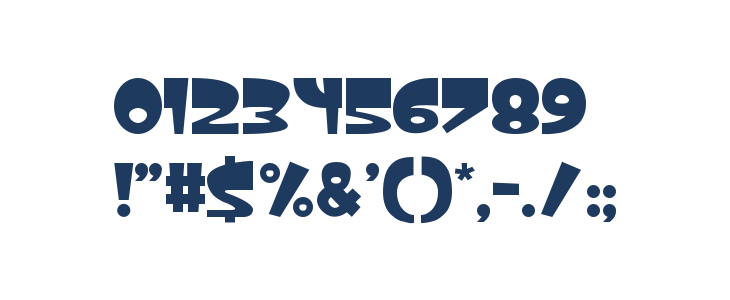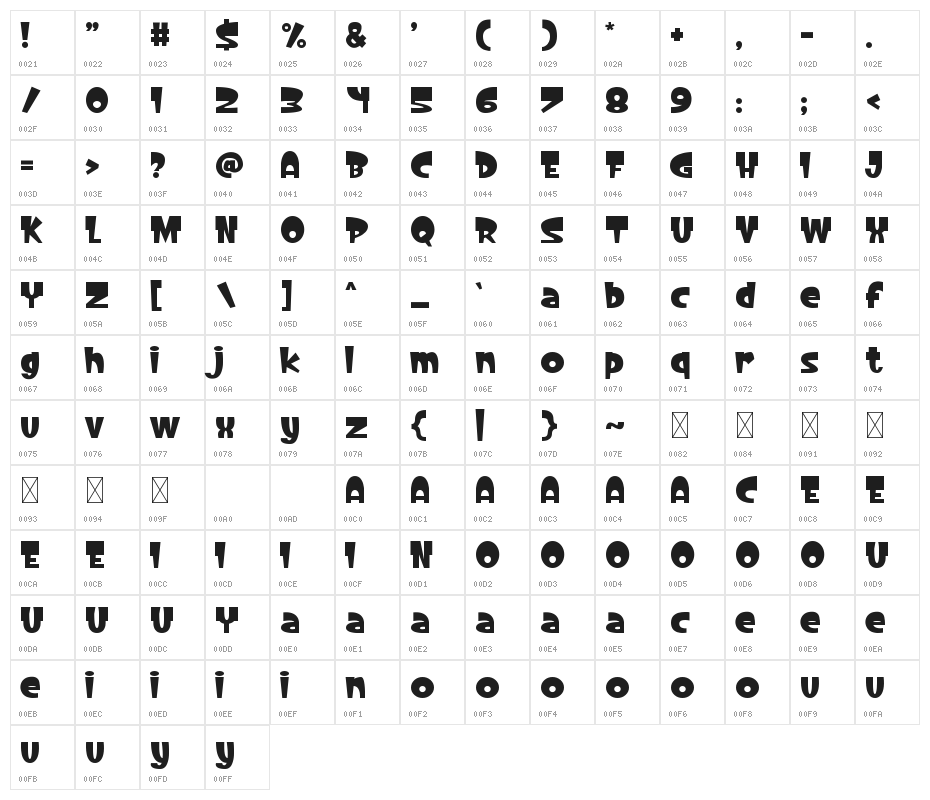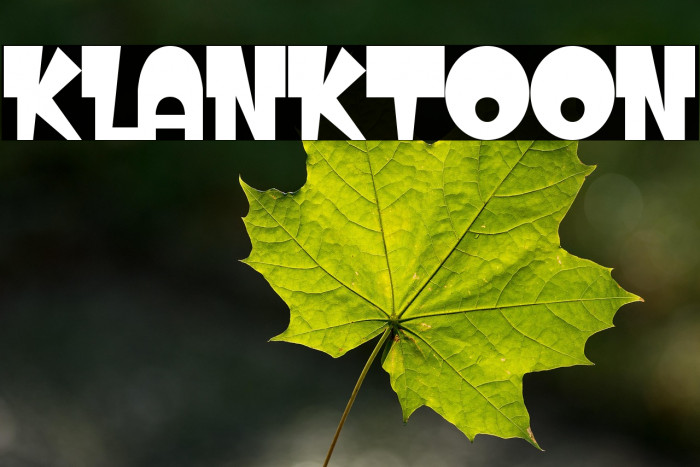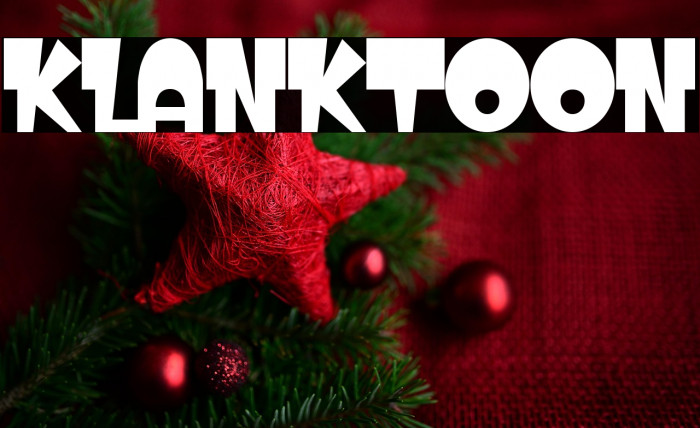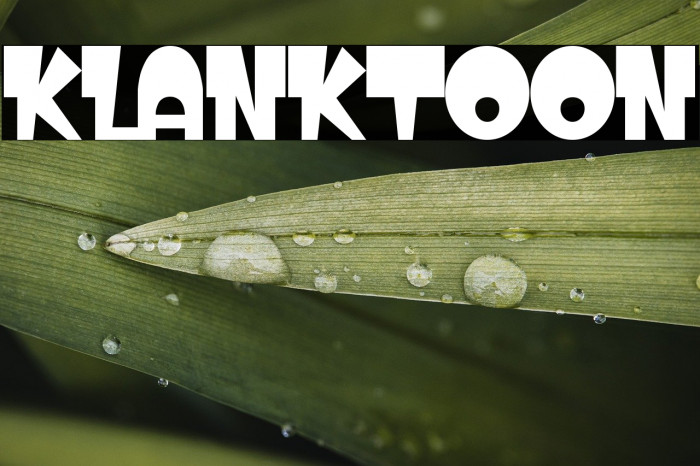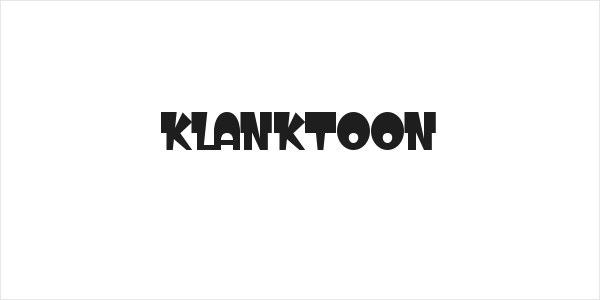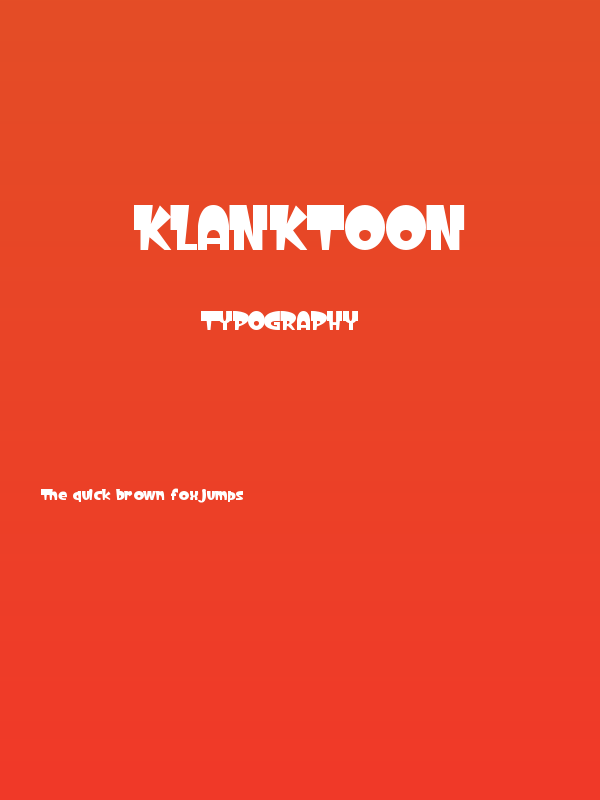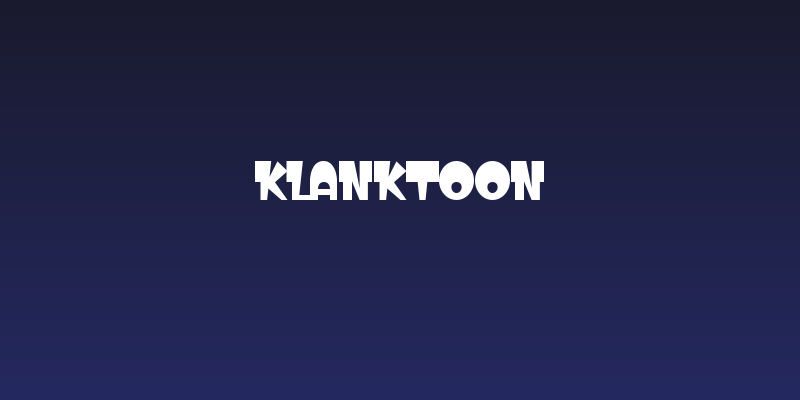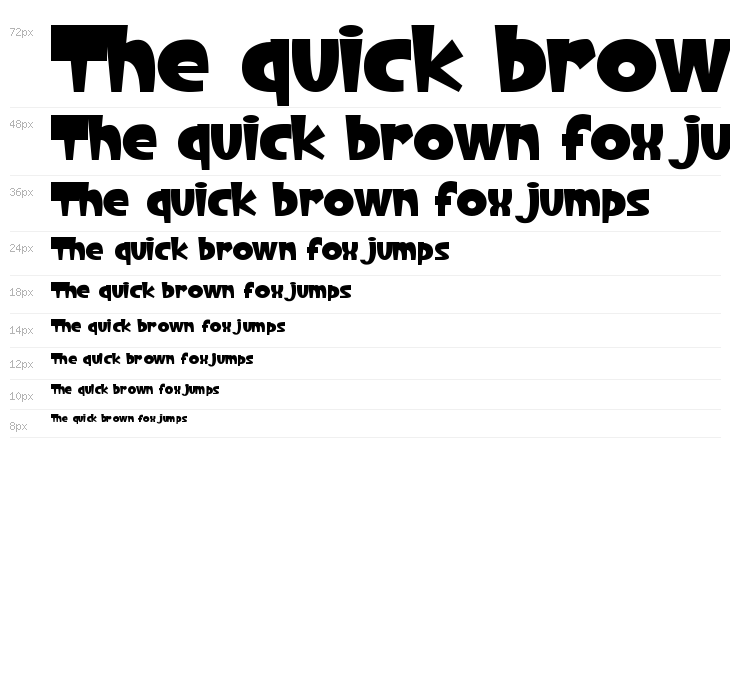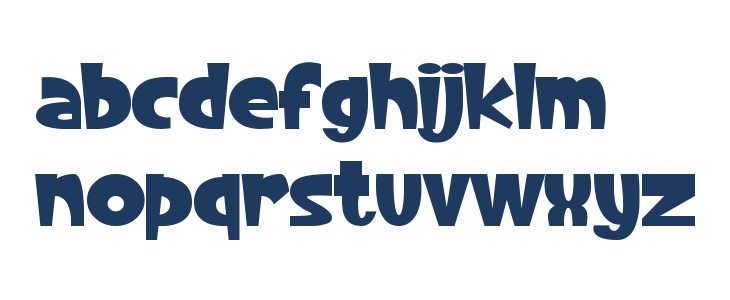
KLANKTOON Font
KLANKTOON Description
This font features a bold and playful design, characterized by its thick, rounded shapes and exaggerated curves. The letters have a cartoonish and whimsical appearance, making them ideal for projects that require a fun and lighthearted touch. The uppercase and lowercase letters maintain a consistent style, with some characters having unique, exaggerated forms that add to the font's charm. The numbers and special characters are equally bold and maintain the playful aesthetic, ensuring a cohesive look across all text elements.
| Overall Style | Playful, Cartoonish |
| Proposed Projects | Ideal for children's books, comic strips, playful branding, and party invitations. |